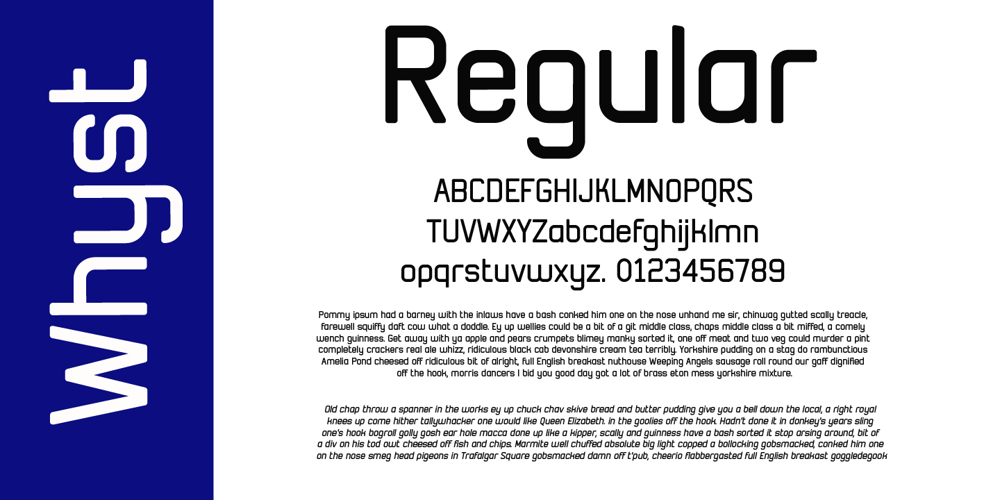
Whyst Font Family was designed by Graham Meade and published by Typotheticals. Whyst contains 28 styles and family package options. A nice basic square font, with an outline version that has multiples of uses.Whyst Standard12 typefacesWhyst Outline12 typefaces in outline formWhyst Sunrise4 typefaces** Whyst Sunrise can only be used as is, Any attempt to faux bold will result in poor results.